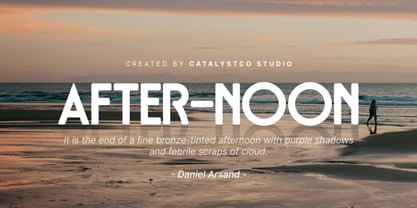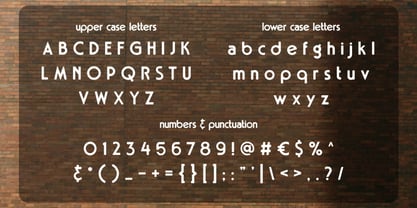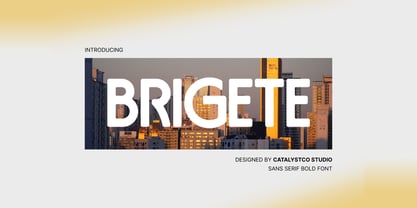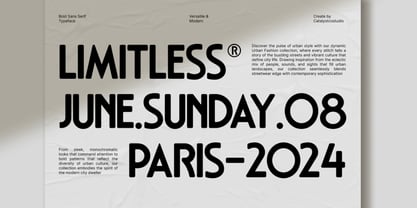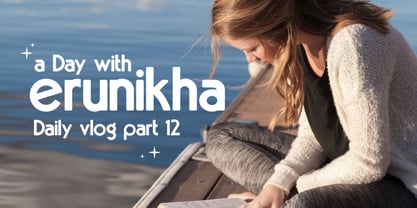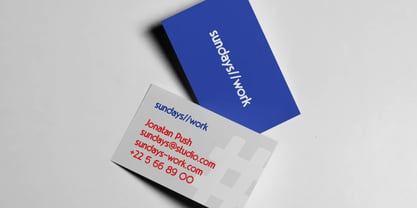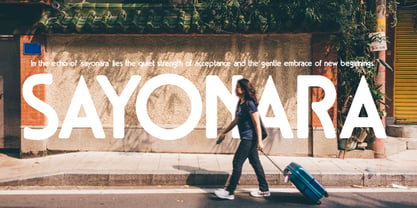
Brigete
Brigete is a bold modern sans serif typeface built with soft curves, clean geometry, and strong visual clarity. The design combines rounded terminals and balanced proportions, creating a friendly yet confident appearance that stands out in large headlines and contemporary layouts. Relevance and Use Cases is perfect for branding systems, logo design, magazine headlines, posters, social media graphics, lifestyle photography layouts, urban campaigns, websites, packaging, presentations, and modern advertising materials that require a clean, bold, and approachable typographic voice.